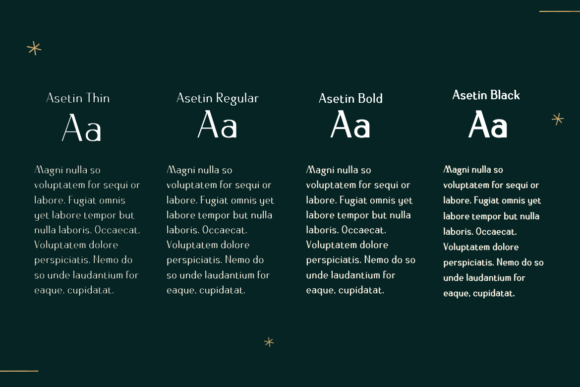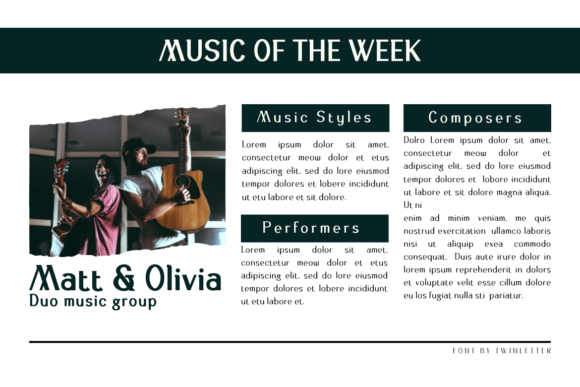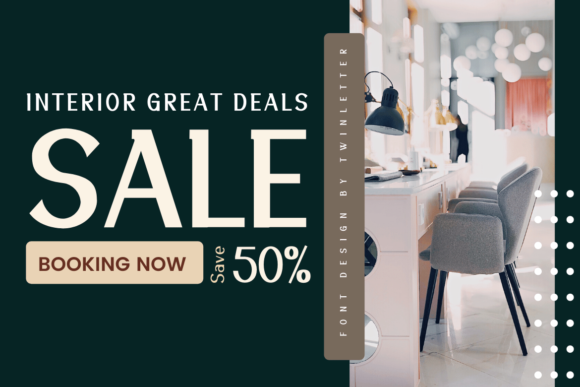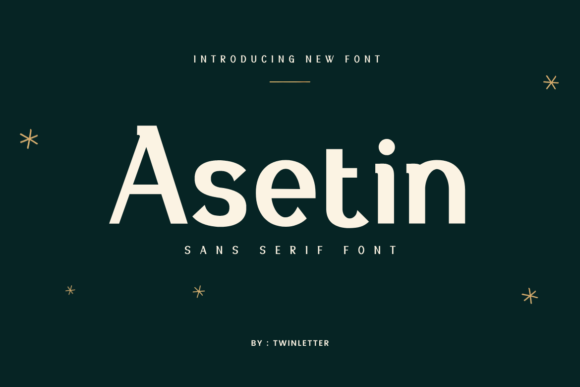
Introduction to Asetin Font
Asetin is a cool and neat sans serif font.
Key Features of Asetin Font
Why Choose Asetin Font?
Asetin Font offers exceptional quality and versatility, making it a valuable addition to your design toolkit. Whether you’re creating for personal projects or commercial use, Asetin Font delivers professional results.